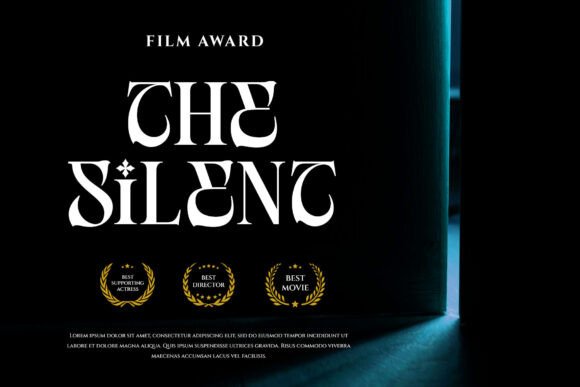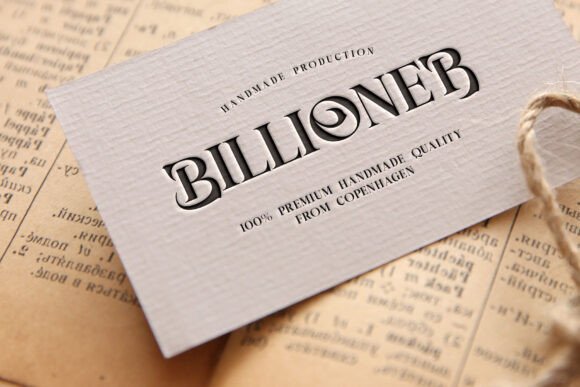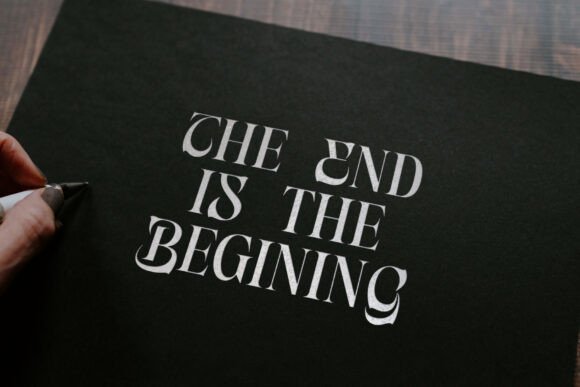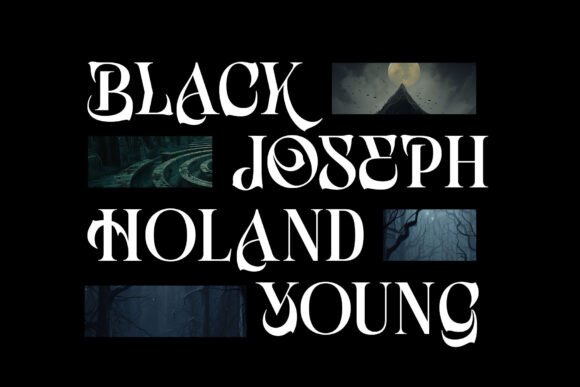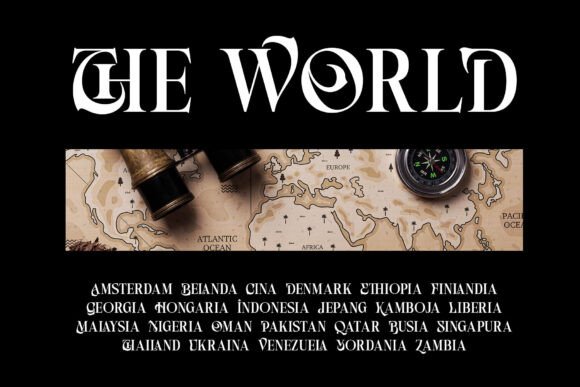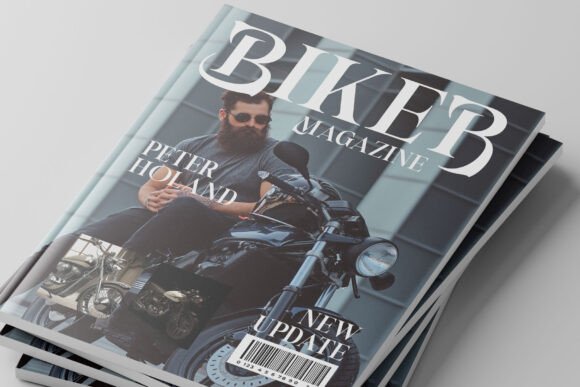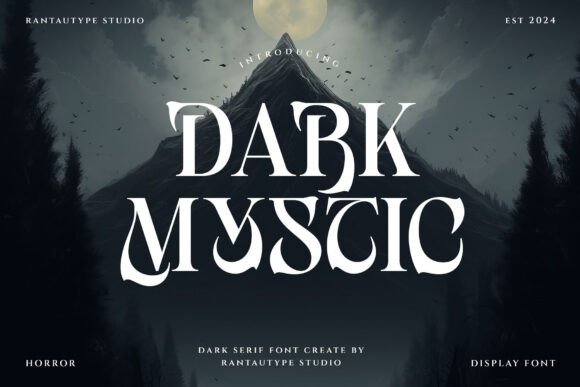
Unleash the Horror: Introducing Dark Mystic Font
Are you a designer or crafter looking for a font that embodies the essence of horror and mystery? Look no further than Dark Mystic Font, a display serif font inspired by the darker side of visual design. With its curved shapes and eerie vibe, Dark Mystic is the perfect choice for any creative project that requires a touch of sophistication and a dash of fear.
The Inspiration Behind Dark Mystic
Dark Mystic Font is born out of the fascination with horror visual design. The creators of this font wanted to capture the essence of the dark and eerie atmosphere that is often associated with horror movies, haunted houses, and spooky tales. They succeeded in crafting a font that not only sends shivers down your spine but also exudes a sense of sophistication and elegance.
Key Features of Dark Mystic Font
So, what makes Dark Mystic Font so unique? Here are some of its key features:
- Display Serif Font: Dark Mystic is a display serif font, which means it’s designed to make a statement. Its serifs are carefully crafted to add a touch of elegance and sophistication to any design.
- Curved Shapes: The font features curved shapes that give it a sense of fluidity and movement. These curves also add to the overall eerie and mysterious vibe of the font.
- Dark and Eerie Vibe: Dark Mystic Font is designed to evoke a sense of fear and unease. Its dark and eerie vibe makes it perfect for projects that require a touch of horror or mystery.
Dark Mystic Font is an incredibly versatile font that can be used for a wide range of creative projects, including:
- Logos: Create a logo that sends shivers down your customers’ spines with Dark Mystic Font.
- Advertisements: Use Dark Mystic to create ads that grab attention and leave a lasting impression.
- Stationery: Add a touch of elegance and sophistication to your stationery with Dark Mystic Font.
- Branding: Create a brand identity that exudes mystery and horror with Dark Mystic.
- Magazine Displays: Use Dark Mystic to create eye-catching headlines and titles for your magazine.
- Invitations: Create spooky and sophisticated invitations for your next event with Dark Mystic Font.
- Headlines: Use Dark Mystic to create headlines that grab attention and leave a lasting impression.
- Corporate Branding: Create a corporate brand identity that exudes sophistication and elegance with Dark Mystic.
- Product Design: Use Dark Mystic to create product labels and packaging that stands out.
- Labels: Create labels that send shivers down your customers’ spines with Dark Mystic Font.
- Business Projects: Use Dark Mystic to create business projects that exude sophistication and elegance.
Why Choose Dark Mystic Font?
So, why should you choose Dark Mystic Font for your next project? Here are just a few reasons:
- Unique and Eye-Catching: Dark Mystic Font is a unique and eye-catching font that will set your project apart from the rest.
- Sophisticated and Elegant: Despite its dark and eerie vibe, Dark Mystic Font exudes sophistication and elegance.
- Versatile: Dark Mystic Font can be used for a wide range of creative projects, from logos to product design.
- Easy to Read: Despite its curved shapes and serifs, Dark Mystic Font is easy to read, even at smaller sizes.
In conclusion, Dark Mystic Font is a display serif font that is perfect for any creative project that requires a touch of horror and mystery. With its curved shapes, dark and eerie vibe, and sophisticated elegance, Dark Mystic is sure to make a statement. Whether you’re a designer or crafter, Dark Mystic Font is a must-have in your font collection.